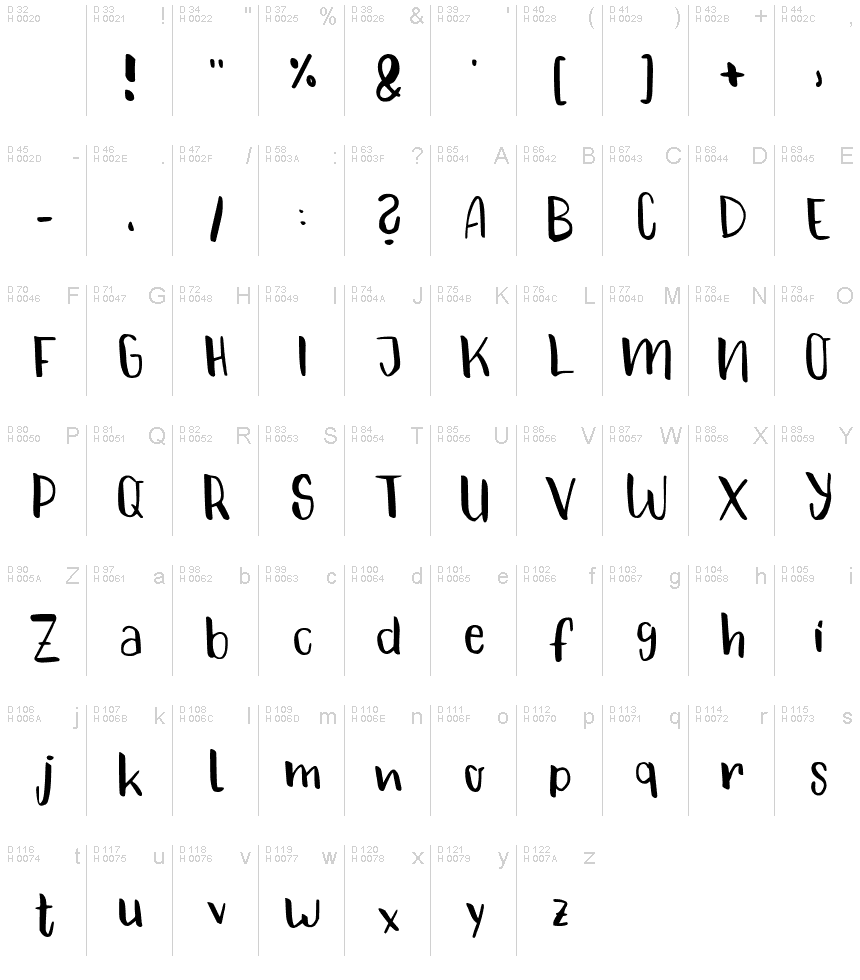
Maame Regular
Maame, designed by Lisa Schoppa, is a captivating handwritten font that adds a touch of elegance to any project. With its semi-light weight, Maame exudes a delicate and refined charm. This versatile typeface is perfect for various projects such as wedding invitations, feminine branding, beauty products packaging, and heartfelt quotes. Whether you're designing a romantic greeting card or creating an enchanting logo for a luxurious spa, Maame will effortlessly elevate your designs with its graceful strokes and organic feel. Let Maame bring an exquisite handwritten flair to your next creative endeavor.